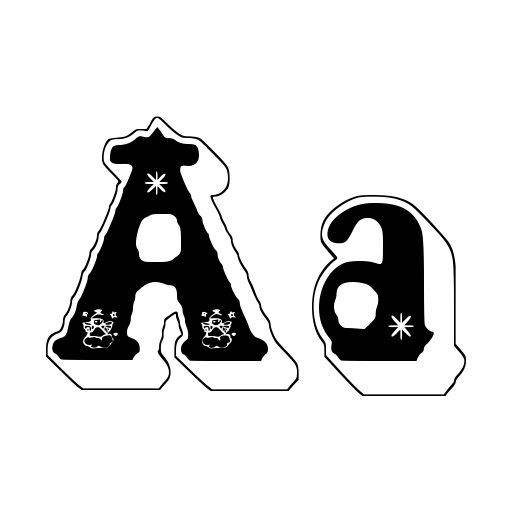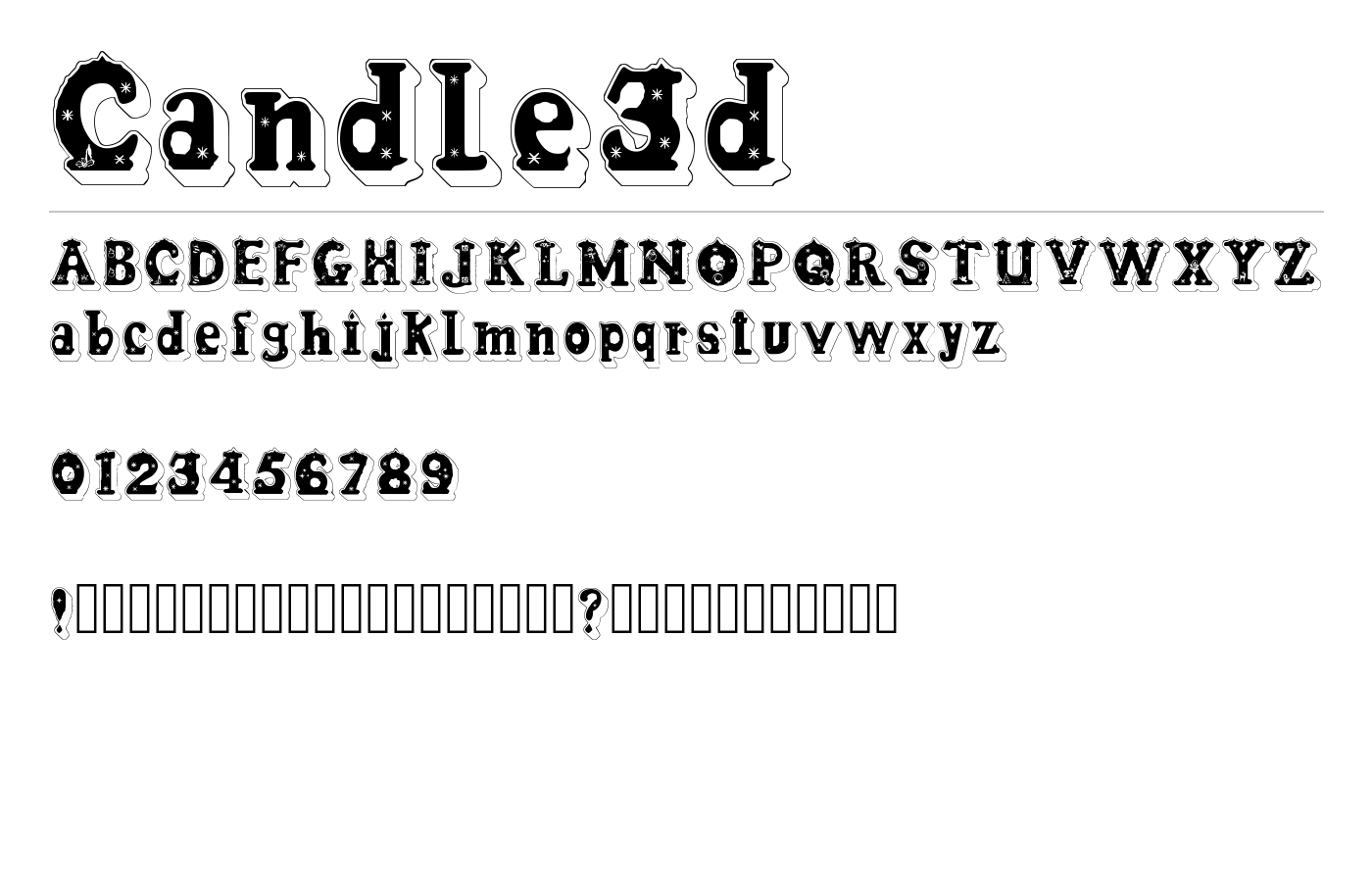
Candle3d is a bold, decorative serif font with a playful 3D shadow effect and star-like embellishments that give it a vintage carnival or circus feel. Its thick, blocky letterforms combined with unique details make it ideal for eye-catching headlines, posters, and branding that aim to evoke fun, nostalgia, or a whimsical atmosphere. This font works best in display settings where its quirky personality and strong visual presence can shine.
Candle3d Font